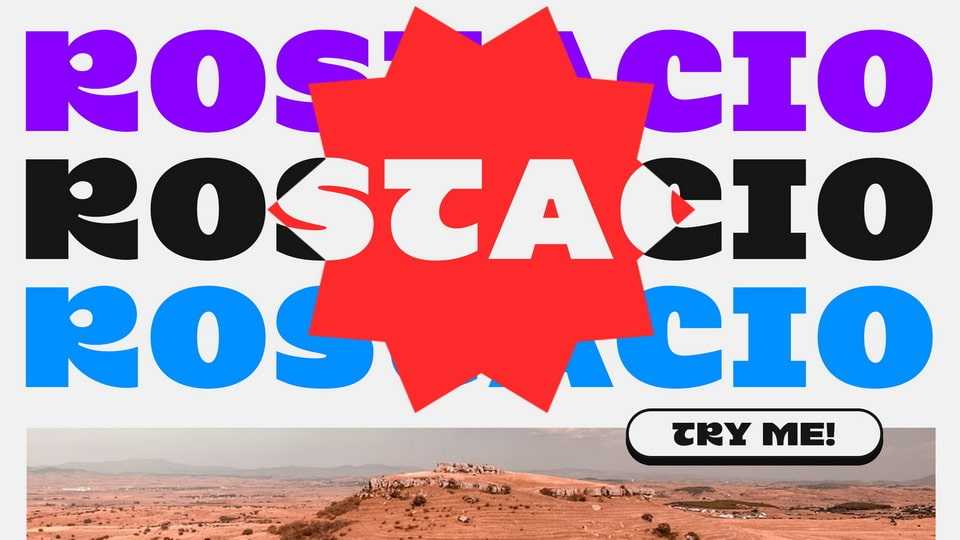
Download Rostacio font, the definitive modern typeface for impactful headlines and resonant logos. Dive into the world of Rostacio font, where modern-day typography meets unparalleled boldness.